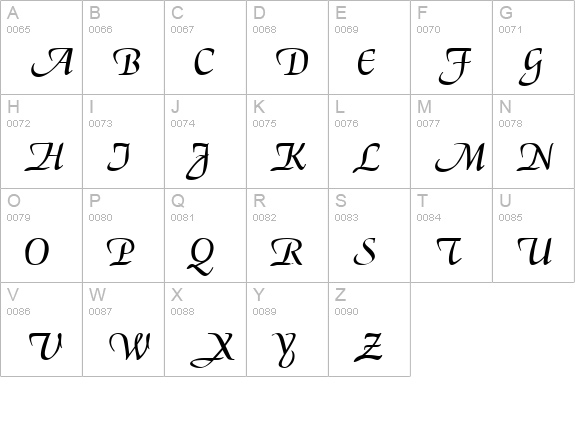
Daniela Regular Font Details
Daniela Regular is the standard, neutral variant in the Daniela typeface family \xE2\x80\x94 well suited to general body text, paragraphs, and standard typographic work.
Daniela Regular font is a versatile and stylish typeface that brings a touch of elegance to any project. Its clean and balanced letterforms make it suitable for a wide range of design applications, from branding and packaging to editorial and advertising. With its timeless charm and classic appeal, Daniela Regular font is sure to make a lasting impression. Whether you're creating a logo, designing a website, or crafting a brochure, this font will add a touch of sophistication to your work. What makes Daniela Regular font even more appealing is that it is free to download. You can easily access this beautiful typeface at FontsMarket.com, where it is available for instant download. This means that you can start using Daniela Regular font in your projects right away, without any hassle or cost. The versatility of Daniela Regular font is further enhanced by its extensive character set, which includes uppercase and lowercase letters, numerals, punctuation marks, and special characters. This allows you to create unique and eye-catching designs that stand out from the crowd. So why wait? Download Daniela Regular font today and elevate your design projects to new heights. With its elegant and timeless aesthetic, this font is sure to become a valuable asset in your creative toolkit. And the best part? It's free! Head over to FontsMarket.com and get your hands on Daniela Regular font now.